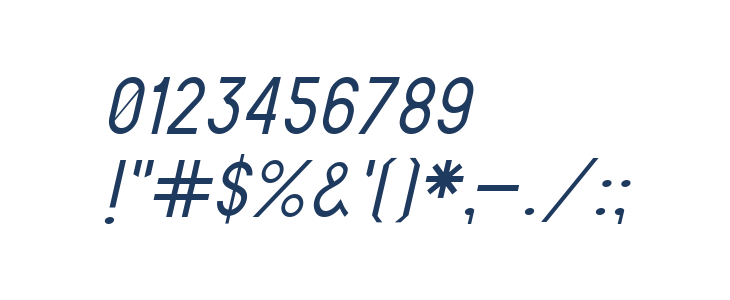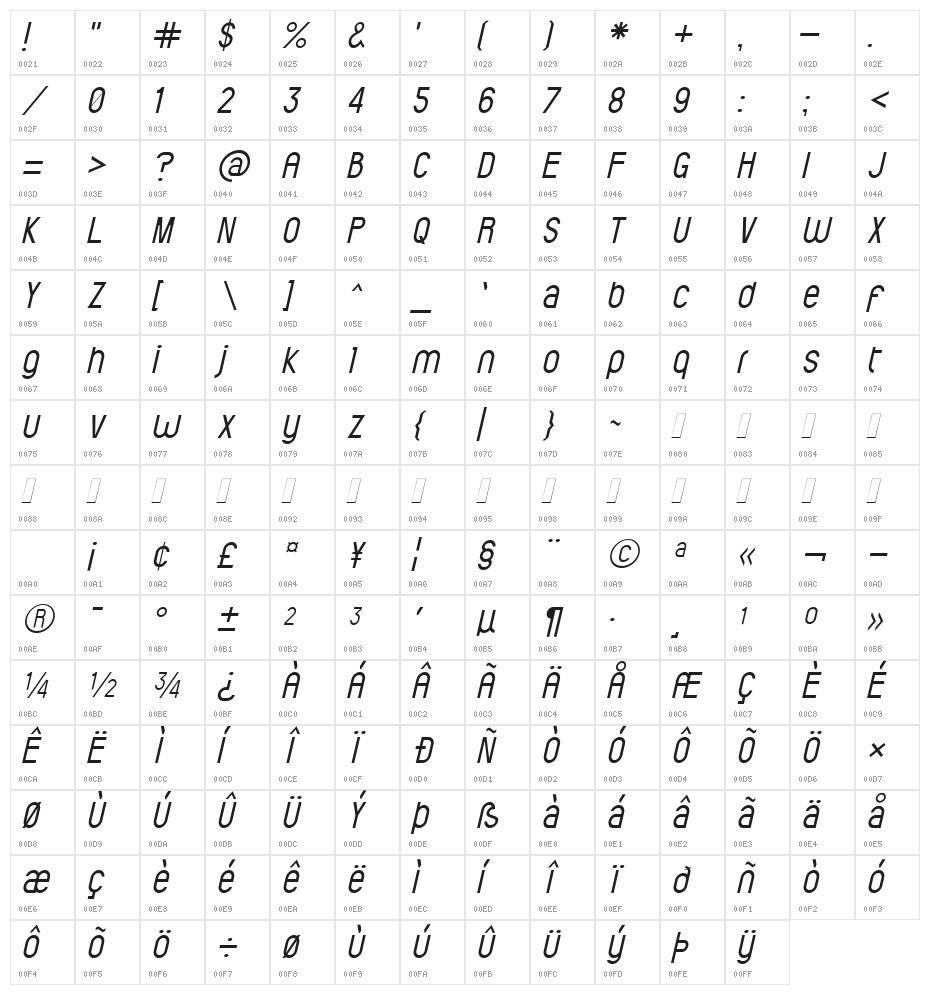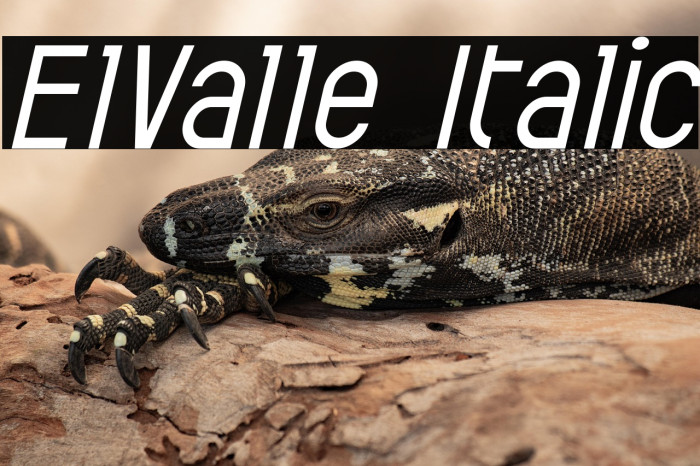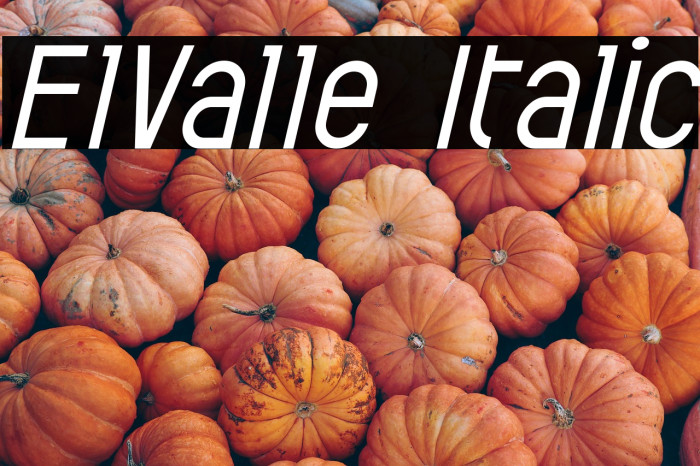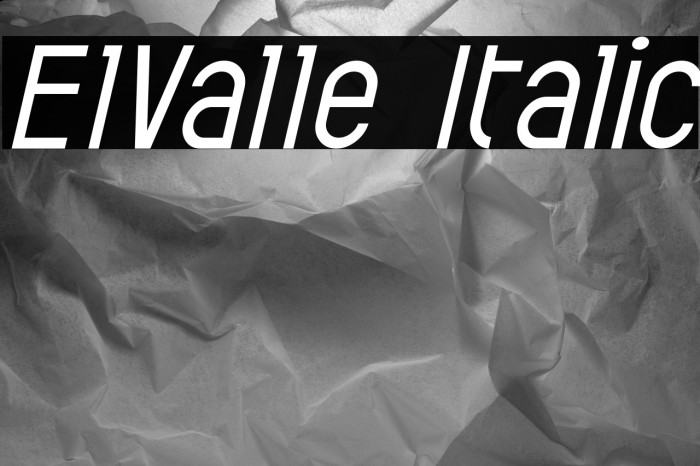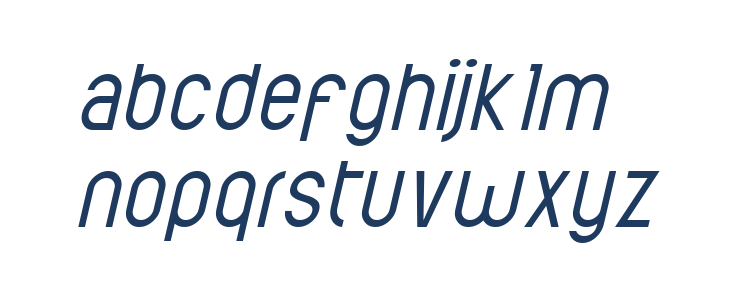
ElValle Italic Font
ElValle Italic Description
This font features a sleek and modern italic style with a slight slant, giving it a dynamic and forward-moving appearance. The characters are clean and streamlined, with consistent stroke widths that provide a uniform look across all letters and numbers. The uppercase letters are bold and assertive, while the lowercase letters maintain a smooth and cohesive flow. The numerals are clear and easy to read, making them suitable for various applications. Special characters are well-defined, adding versatility to the font's use. Overall, this font exudes a contemporary and professional vibe, making it ideal for modern design projects.